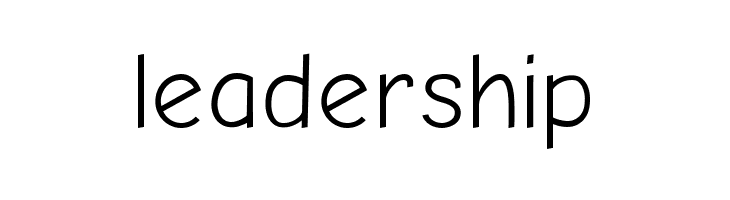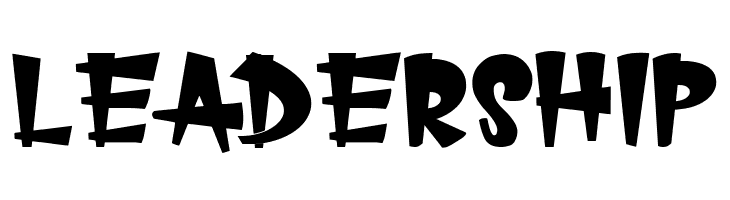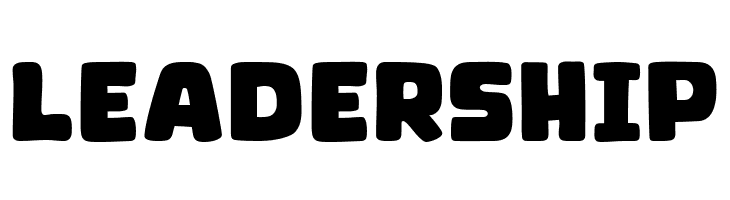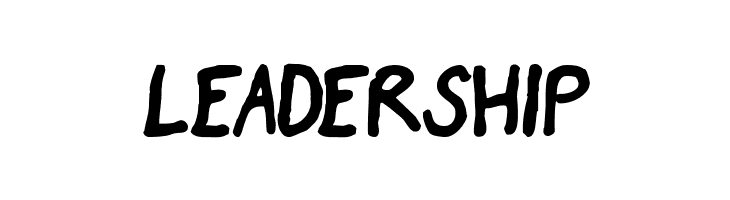
( Michael Hassler - hassified.blogspot.com/ )
A playful, informal font with rounded, slightly irregular characters and a handwritten style.
A playful, rounded font with a handwritten, informal style.
( Fonts by Blankids )
Playful and bold cartoon-style font.
( Fonts by Blankids )
Bold, playful font with 3D extruded effect.
A bold, playful typeface with rounded, cartoonish characters.
( Fonts by Gie Studio )
A bold, playful font with a comic-style, hand-drawn appearance.
A playful, modern font with angular elements and a dynamic feel.
A playful, light, and friendly font with rounded edges and a casual style.
A playful, rounded font with a casual and friendly appearance.
( leolapasset.ultra-book.com/ )
A bold, playful handwritten font with a casual, dynamic style.
( Darrell Flood )
A bold, playful font with a comic book style and hand-drawn appearance.
( Fonts by Roland Huse - rolandhuse.com )
A bold, playful font blending comic and Roman styles.
A playful, bold font with a cartoonish, hand-drawn style.
A bold, cartoonish font with thick, rounded strokes and a playful style.
A playful serif font with a hand-drawn, comic-like style.
( Fonts by Bangkit Tri Setiadi )
A bold, playful outline font with a comic, stone-like appearance.
A playful, bold font with rounded, thick strokes and a comic book style.
A playful, hand-drawn comic-style font with bold, rounded characters.
A bold, comic-strip style font with dynamic, sketch-like lines.
A bold, flame-inspired decorative font with a dynamic and energetic style.
A bold, flame-inspired decorative font with dynamic, jagged edges.
( Atjcloth Studio - Hanif Syahputra - creativemarket.com/Atjcloth?u=Atjcloth )
A bold, playful font with a comic book style and hand-drawn feel.
( www.studiotypo.com )
A playful, bold font with rounded characters and a cartoonish style.
( Fonts by Blue Vinyl - Jess Latham - www.bvfonts.com )
A bold, hand-drawn comic-style font with thick outlines and playful character.
( Fonts by Pinisiart )
A bold, playful typeface with a cartoonish and lively style.
( Fonts by Southype )
A playful, hand-drawn font with bold, irregular strokes and a comic book feel.
A bold, cartoonish font with a playful, hand-drawn style.
( Fonts by Titan Firman )
A playful, handwritten font with rounded edges and a casual style.
A bold, hand-drawn style font with a comic book flair.